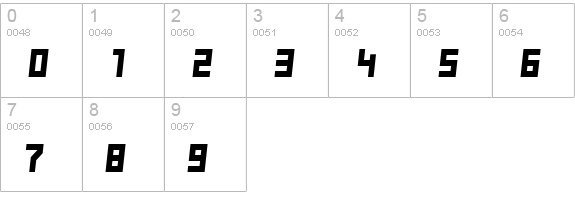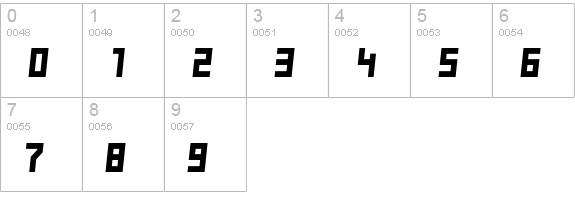
Electric Boots font is a striking display typeface that exudes energy and modernity. Its bold, electrifying design makes it perfect for headlines, logos, posters, and other eye-catching projects. The sleek lines and sharp edges of Electric Boots give it a futuristic and dynamic appearance that is sure to make your designs stand out. This versatile font is available for free download at FontsMarket.com, making it accessible to designers of all levels. Whether you're working on a high-energy advertising campaign or a cutting-edge branding project, Electric Boots is the perfect choice to add a touch of excitement and style. Download Electric Boots today and electrify your designs!